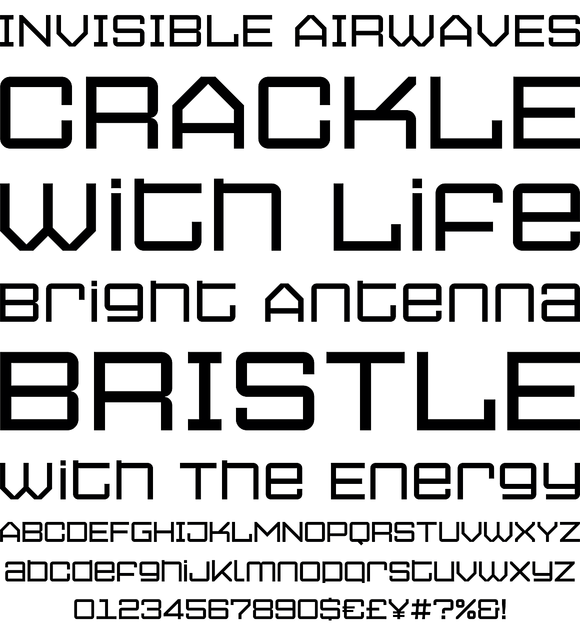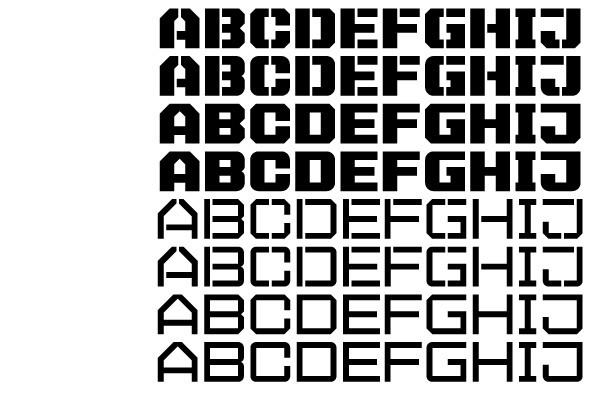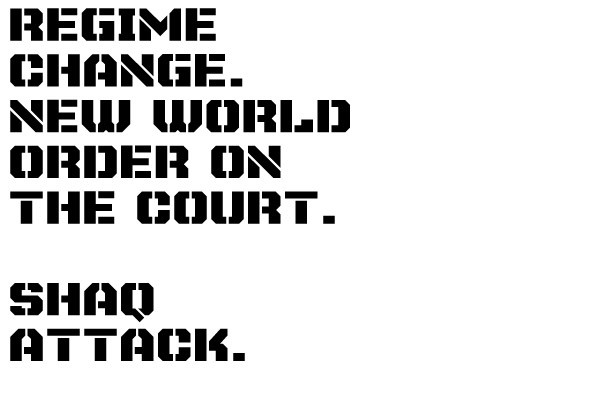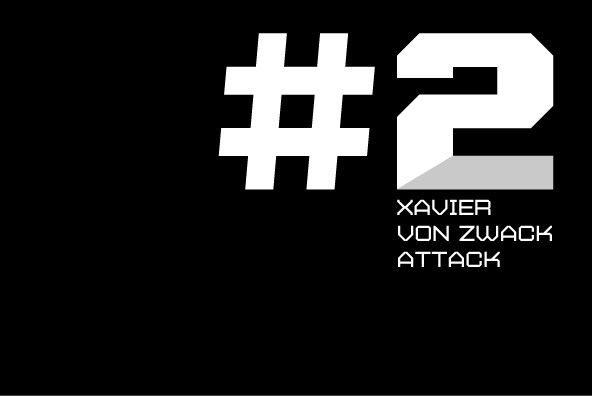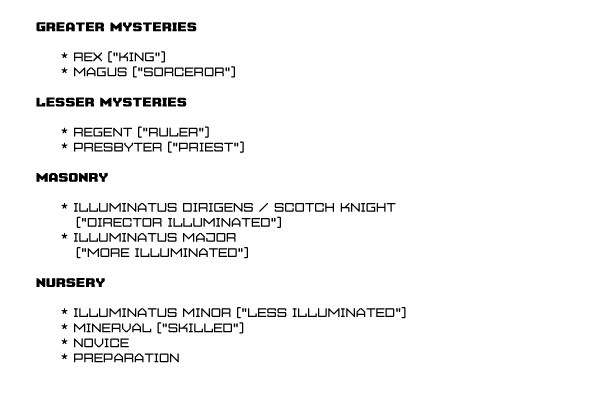
Super Duty Regular
Foundry: Typeco
Stencil fonts often evoke rigid and sterile images such as packing crates or military vehicles, but Super Duty is somewhere between serious and fun. Super Duty is designed with sharp mechanical angles which give the letterforms a square-jawed and ready-for-action feel. A rounder companion version is included that has the sharp edges smoothed out.
Unlike most stencil fonts this one has a lowercase that matches the strength of the uppercase. The lowercase has been designed with an x-height equivalent to the cap height and barely protruding ascenders so that the user can interchange the upper and lower letterforms for a funky graphic effect.
Super Duty is a robust and versatile stencil font family of 25 fonts - sharp and round variations with closed versions in 2 weights each. These are provided in 3 widths - regular, narrow and condensed. Super Duty includes a text version that has more regular proportions and letter forms for a well rounded display font system.